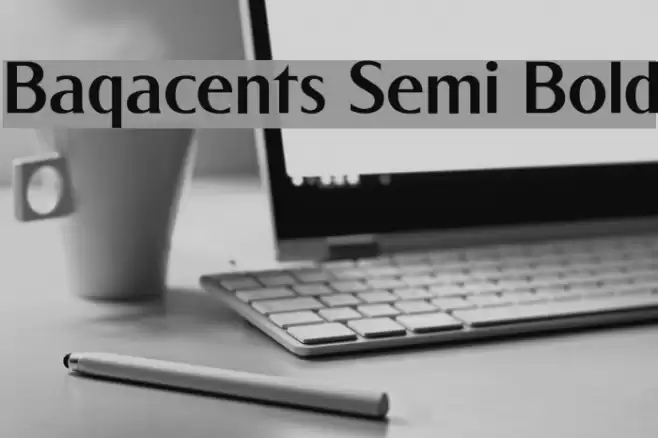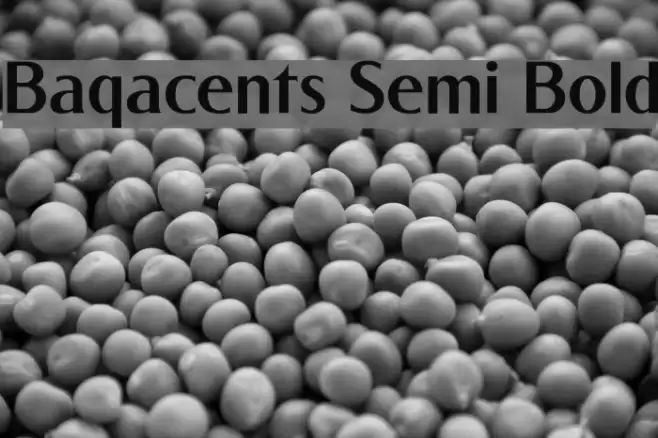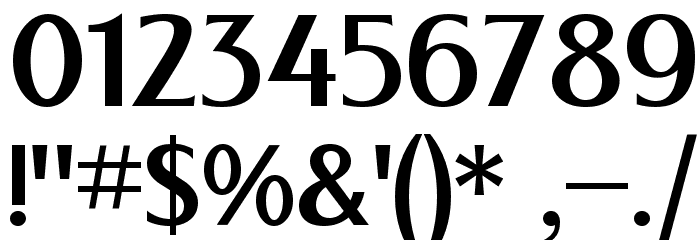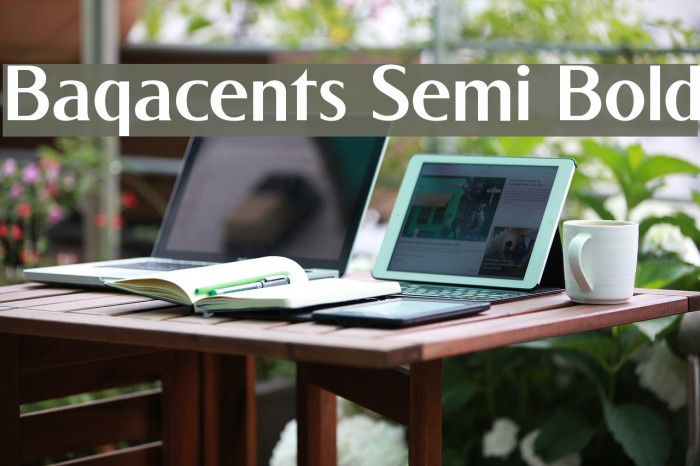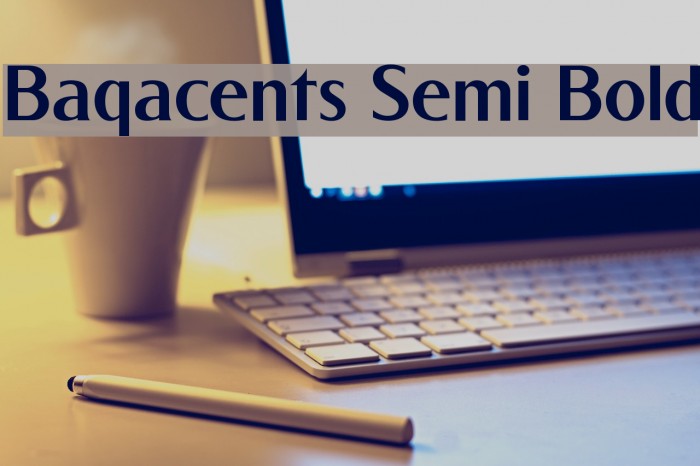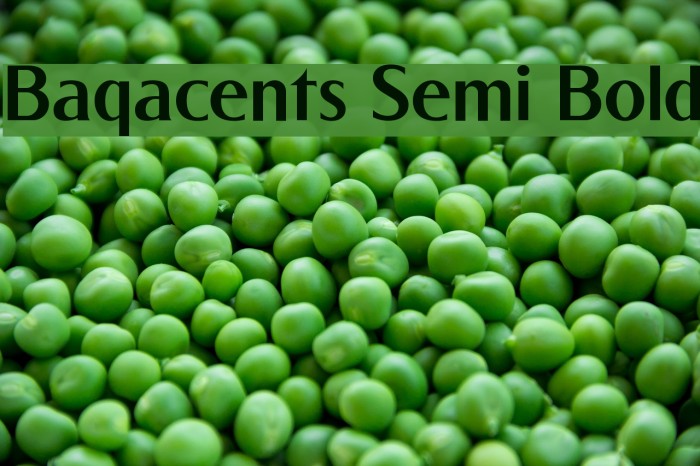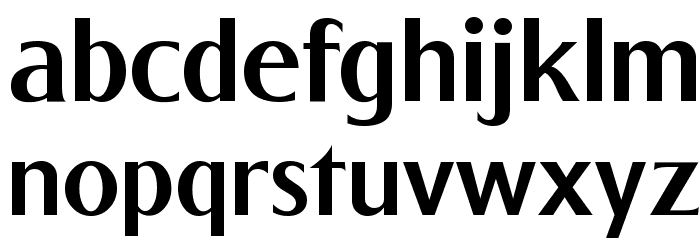
Baqacents Semi Bold Font
Baqacents Semi Bold Description
This font exhibits a strong and confident presence with its semi-bold weight, making it ideal for impactful statements. The characters are well-defined with a modern aesthetic, featuring clean lines and a balanced structure. The uppercase letters are bold and assertive, while the lowercase letters maintain a harmonious flow. Numerals are clear and distinct, ensuring readability. Special characters are crafted with precision, adding versatility to the font's use. The overall design is sleek and contemporary, suitable for a variety of applications.
A modern, semi-bold font with clean lines and a strong presence from Uncategorized fonts.
- Proposed Projects: Ideal for branding, advertising, headlines, and digital media where a bold statement is needed.
- Use Case: Headlines, Logos, Branding